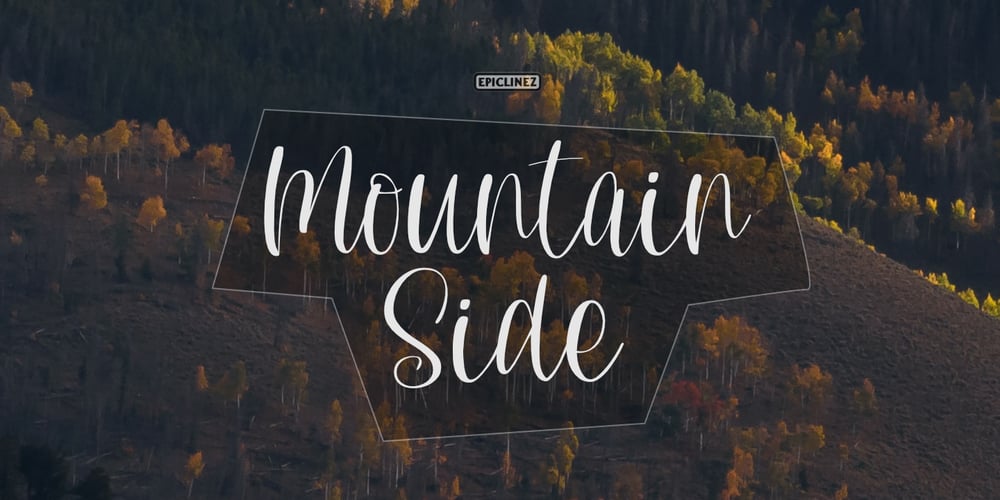
Mountain Side Font Family was designed by Aldy Sidik and published by Epiclinez. Mountain Side contains 1 styles and family package options. Mountain Side is a sweet, joyful, and incredibly versatile handwritten font. It has beautiful and well-balanced characters and as a result, it matches a wide pool of designs. Add it to your most creative ideas and notice how it makes them come alive.